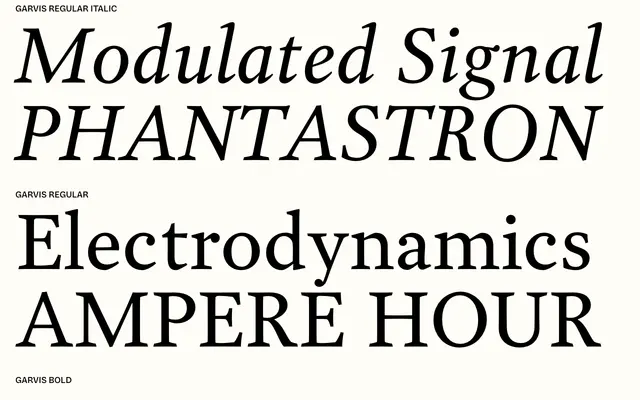
Garvis
JTD Type · 2012
A neoclassical text serif drawing on the Dutch Fleischmann tradition, built for legibility on screen and at small sizes with full IPA coverage.
Positioned between Dutch Baroque and neoclassical type, Garvis carries subtle irregularities at display sizes that recall metal type printing, smoothing to a warm, even texture at text sizes. Four weights from Book to Bold each have a matching italic, and the family covers all contemporary Latin-based orthographies alongside a complete IPA character set. Dan Reynolds selected it for Typographica's Favourite Typefaces of 2012.
Garvis bridges Dutch Baroque type in the Fleischmann tradition with neoclassical proportions, featuring modulated contrast and refined letterforms suited to both text and display use.